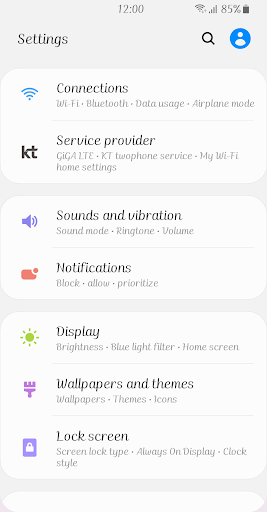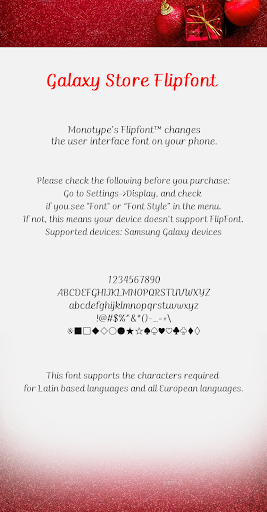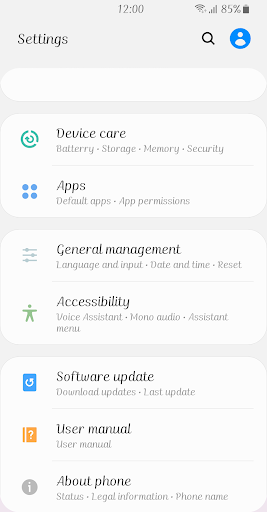
ZFWishyou
This is a script-style font written with care and a precious heart.
You can see the change in thickness depending on the movement of the strokes, and the naturally connected strokes give a comfortable impression.
I present it to you with a warm and precious heart.
I hope your smile shines brightly like the sunlight.
I hope your day is beautiful like a flower.
A small wish I've always wished for, I hope you're happy.
I have nothing more to wish for, you're all I need.